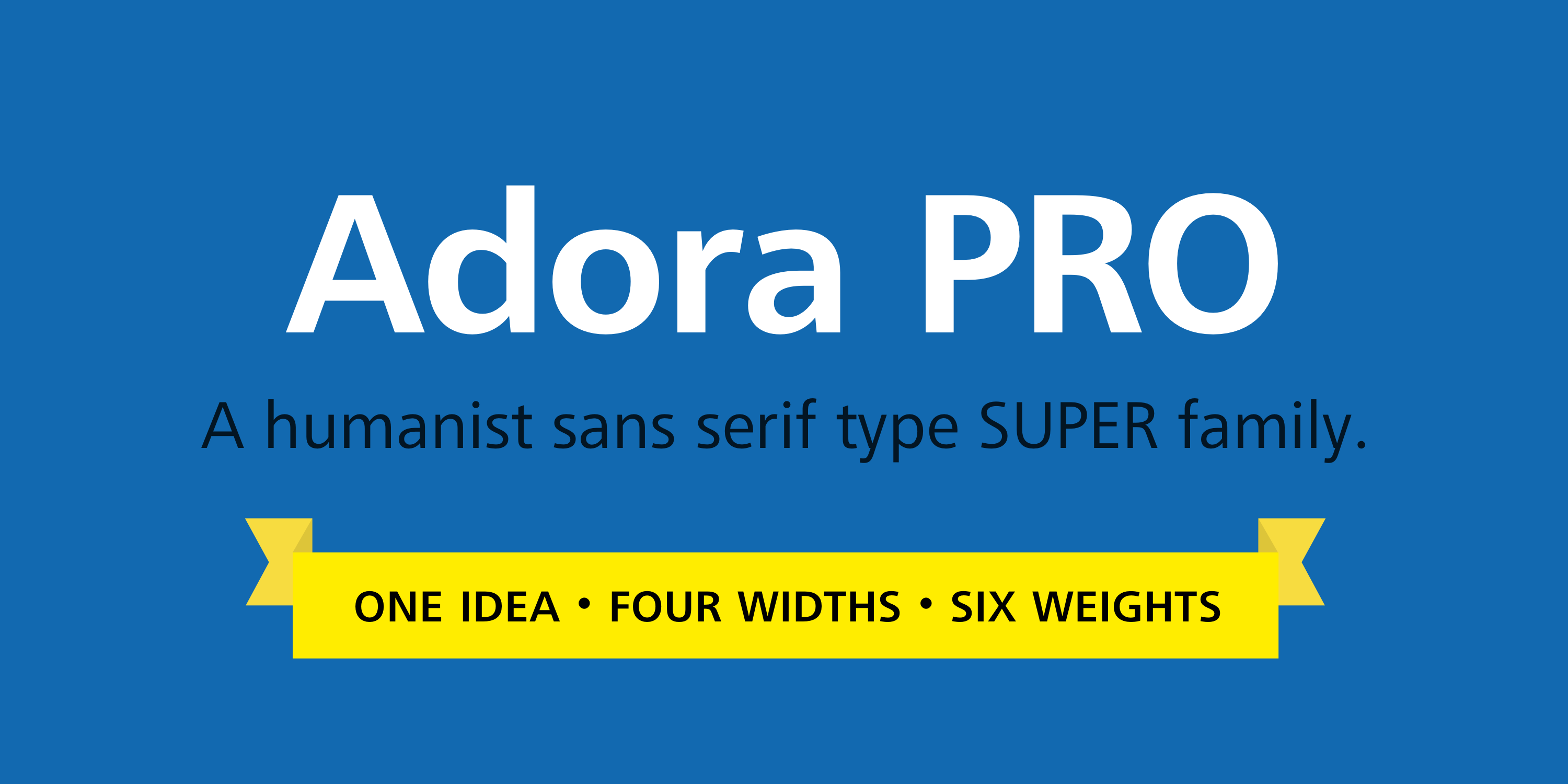
Please note, you must purchase this font for commercial use. You can download Adora Condensed PRO Font Free Download for testing purposes and explore its sleek, condensed design. Adora Condensed PRO Font is perfect for modern branding, editorial content, packaging, and any project that requires a clean, professional appearance with a space-saving design.
With its narrow, elegant letterforms and geometric structure, Adora Condensed PRO Font brings a sophisticated yet modern aesthetic to your designs. It's ideal for creating impactful headlines, logos, and marketing materials that require both legibility and style.
Adora Condensed PRO Font Free Download supports multilingual characters, making it versatile for global projects. Its refined design ensures readability even in tight spaces, making it a great choice for both digital and print applications.